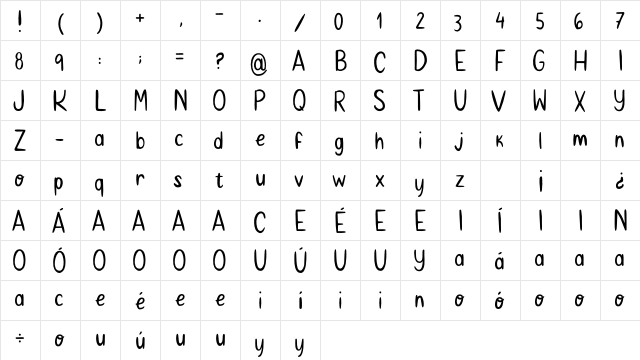
Braund Handwritten Regular
Design Context for Braund Handwritten Typeface
Braund Handwritten flows with the natural rhythm of handwritten lettering, making it ideal for designs that call for warmth and personal expression.
Font Pairing: Combine Braund Handwritten with a simple geometric sans for maximum contrast — the tension between flowing curves and clean structure is a classic typographic pairing.
Pro Tip: Use Braund Handwritten for short runs of text — names, titles, or taglines. Extended body copy in script faces tires the eye quickly.